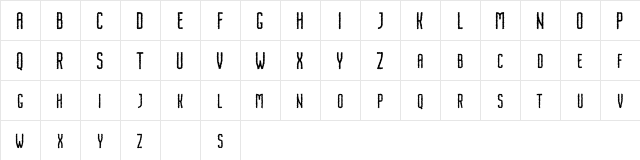
Nordin Free Rough Regular
Design Context for Nordin Free Rough Typeface
Nordin Free Rough trades polish for personality, using distressed and eroded forms to bring grit and attitude to creative work.
Suited to punk-influenced zines, underground music branding, streetwear, and raw, anti-corporate design.